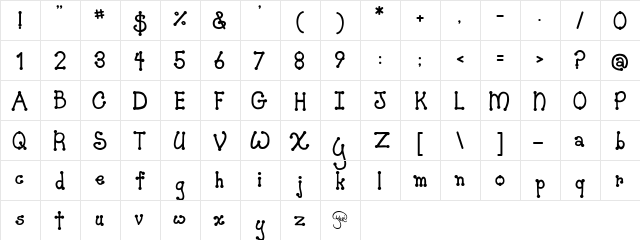
JI Skookumchuck Font Preview
Design Context for JI Skookumchuck Typeface
JI Skookumchuck is a composed and adaptable typeface that performs quietly and consistently across a wide range of design contexts.